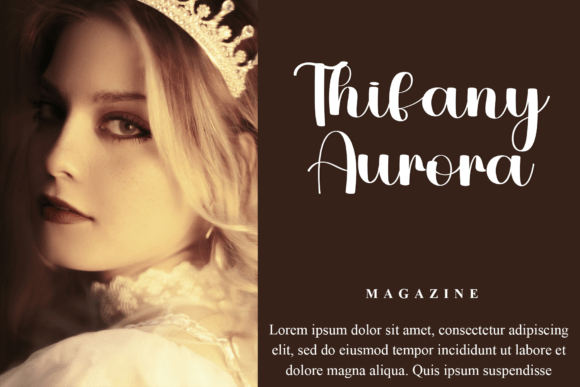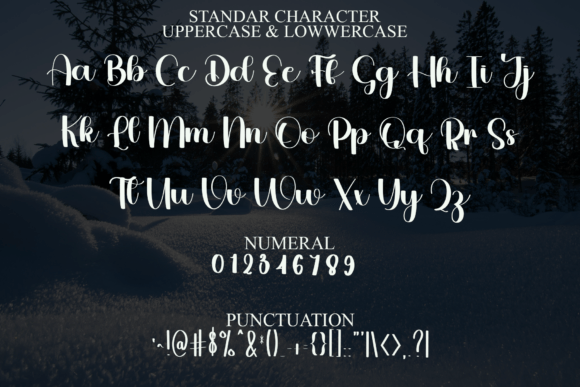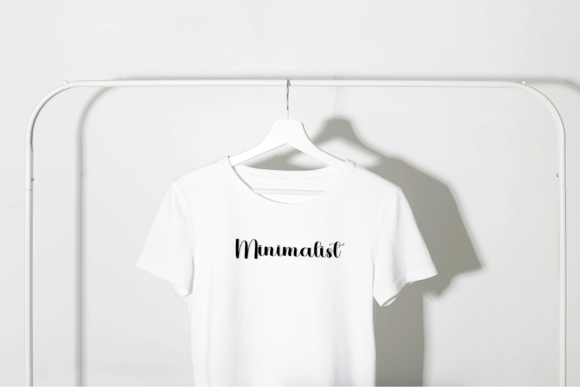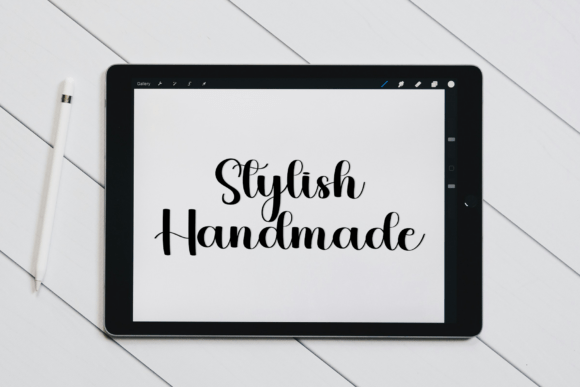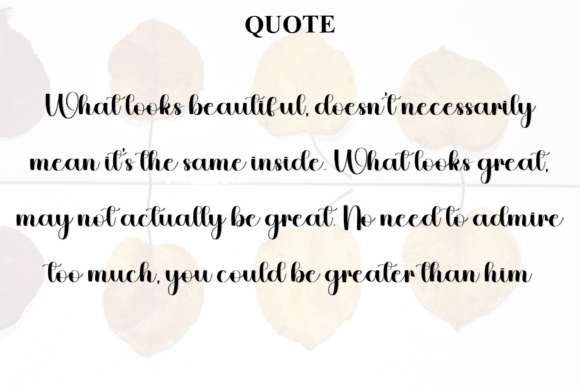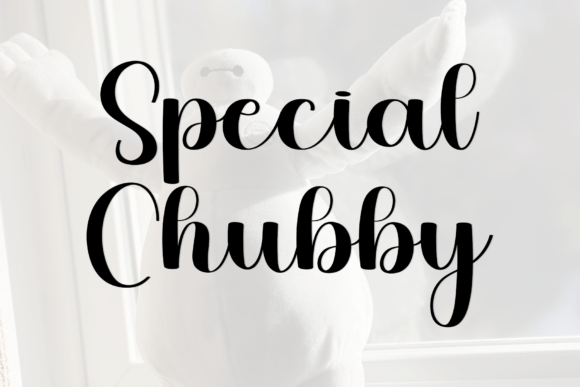
Deck the Halls with Typography
There’s something magical about creating holiday designs that bring joy to our loved ones. Whether it’s a handmade card or a personalized gift tag, the right font can make all the difference. For designers, finding the perfect typeface can be a challenge, especially when it comes to capturing the essence of the season. That’s where the Chubby Handmade Font comes in – a festive and merry typeface that embodies the spirit of the holiday season.
This delightful font is more than just a pretty face; it’s a valuable tool for designers looking to add a touch of whimsy and enchantment to their projects. With its decorative elements and PUA encoding, the Chubby Handmade Font makes it easy to access all the amazing glyphs and ligatures, taking your holiday designs to the next level.
Chubby Handmade Font Key Features
- Font Family: Chubby Handmade Font is a unique, handmade font designed for creative and artistic purposes.
- Unique Characteristics: Chubby Handmade Font features a distinctive, handmade aesthetic with irregular letterforms, making it perfect for adding a touch of personality to designs.
- Character Set: The font includes a wide range of characters, including uppercase and lowercase letters, numerals, punctuation marks, and special characters, making it suitable for various design projects.
Chubby Handmade Font Review
As a designer, I’ve had the chance to work with various fonts, and the “Chubby Handmade Font” is one of the more interesting ones I’ve come across. ✨ The font’s unique, handwritten style gives it a warm and friendly feel, making it perfect for projects that require a personal touch.
- The font’s legibility is surprisingly good, considering its handwritten nature. Characters are well-spaced and easy to read.
- The font’s expressiveness is a major plus. It’s perfect for titles, headings, and any other text that needs to stand out.
However, there are a few limitations to consider ⚠️:
- The font’s width variation can be a bit inconsistent, which may affect the overall alignment of text.
- The font’s character set is limited, which may not be ideal for projects that require a wide range of characters.
Overall, the “Chubby Handmade Font” is a solid choice for designers who want to add a touch of personality to their projects. While it may have some limitations, its unique style and good legibility make it a worthwhile addition to any design toolkit.
Getting the Most Out of Chubby Handmade Font
For the best results, use Chubby Handmade Font in designs where a playful, handwritten feel is desired. This font is particularly well-suited for:
- Birthday invitations and party decorations.
- Food and drink labels.
- Children’s products and packaging.
Some common use cases for Chubby Handmade Font include:
- Party decorations and invitations.
Alternatives to Chubby Handmade Font
Great Vibes Font is a script font that features a playful, cursive style. It’s ideal for use in creative projects, such as invitations, posters, and social media graphics. When to use: Any project that requires a fun, casual vibe.
Compared to Chubby Handmade Font, Great Vibes Font has a more fluid, connected look, while Chubby Handmade Font has a more blocky, textured feel. Great Vibes Font is also more versatile and can be used in a wider range of contexts.
Carolyna Pro Font is a modern, elegant script font that’s perfect for use in high-end branding, packaging, and advertising projects. When to use: Any project that requires a sophisticated, luxurious feel.
Compared to Chubby Handmade Font, Carolyna Pro Font has a more refined, polished look, while Chubby Handmade Font has a more rustic, handmade feel. Carolyna Pro Font is also more suitable for corporate or professional contexts.